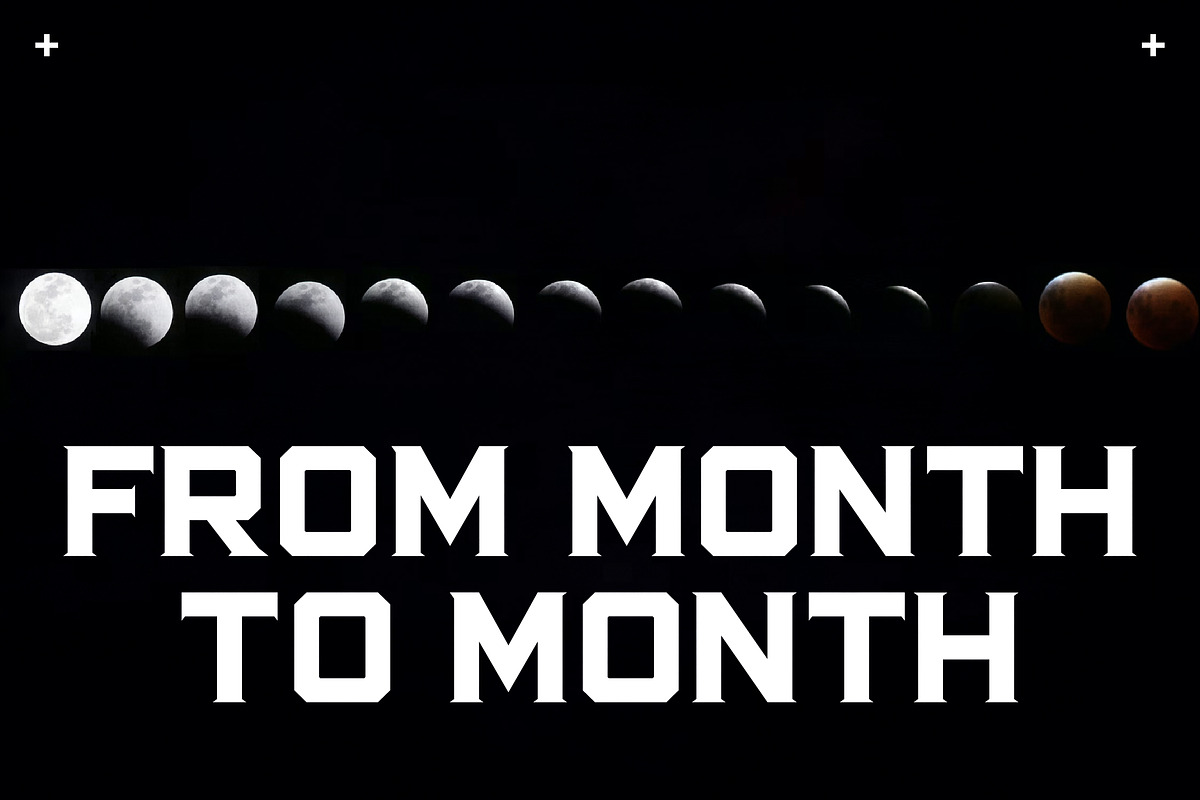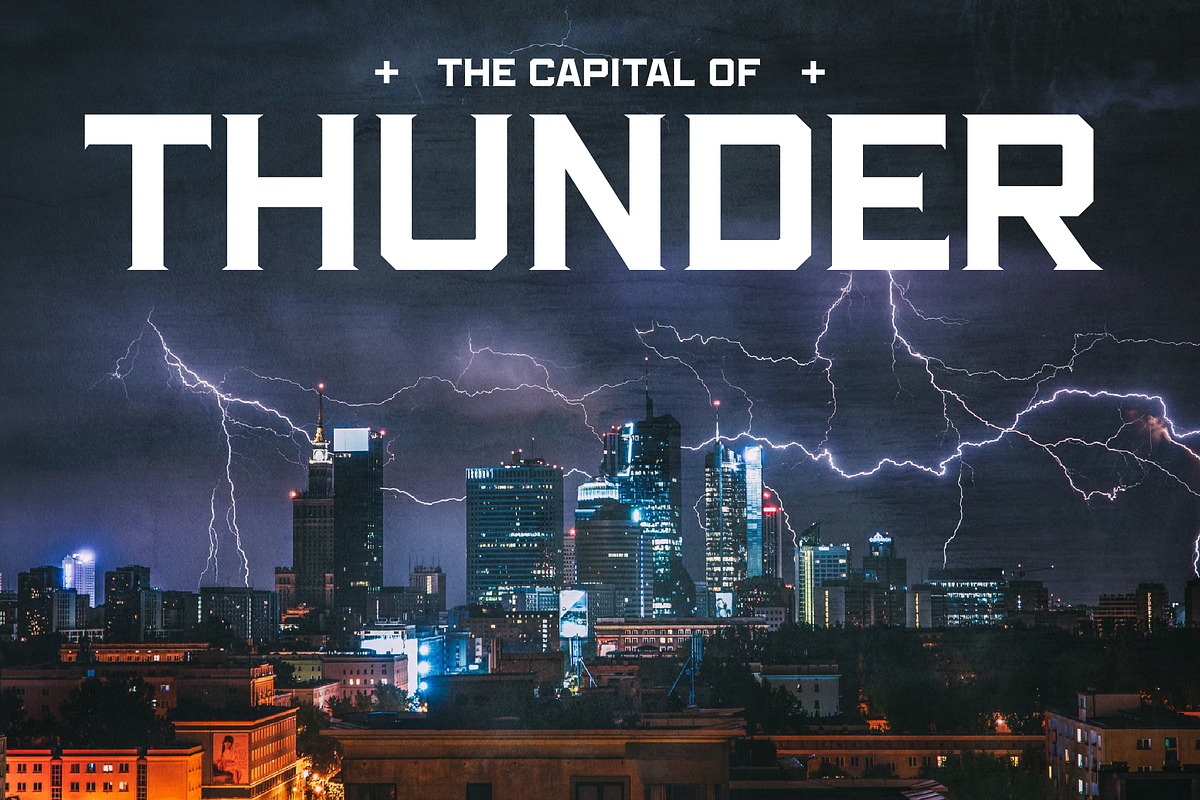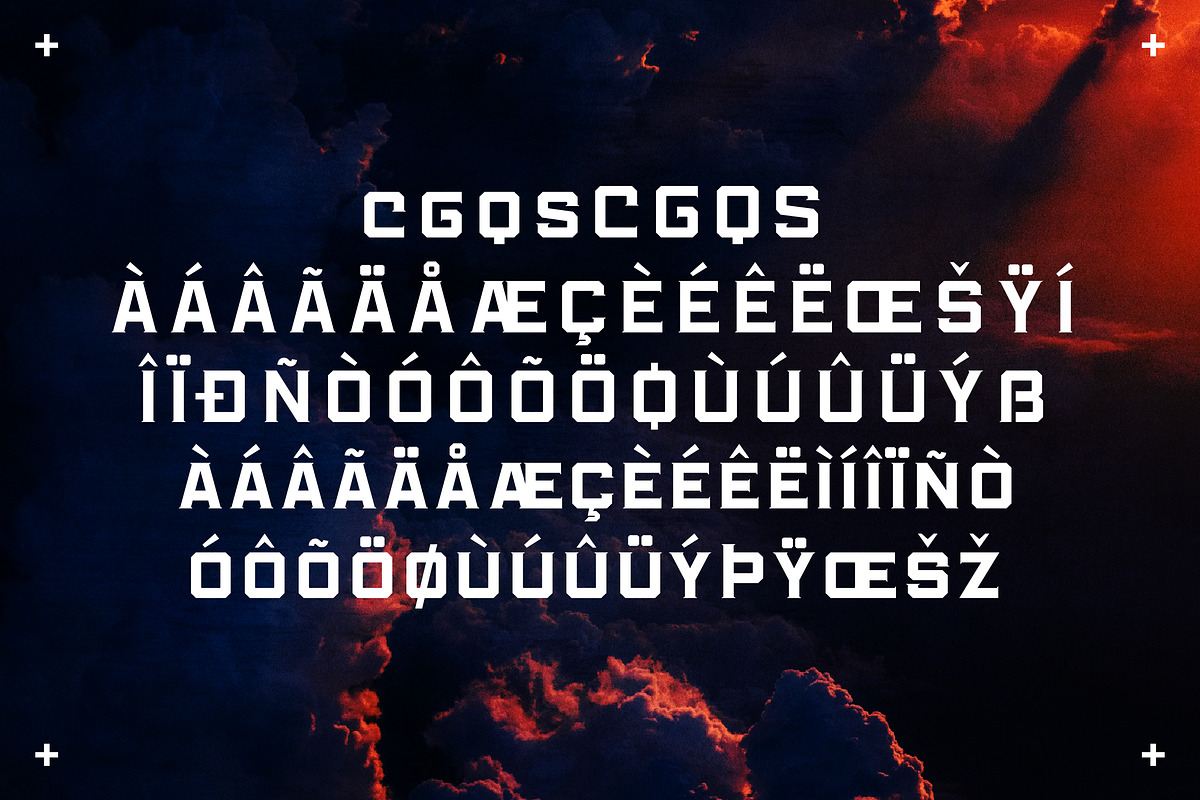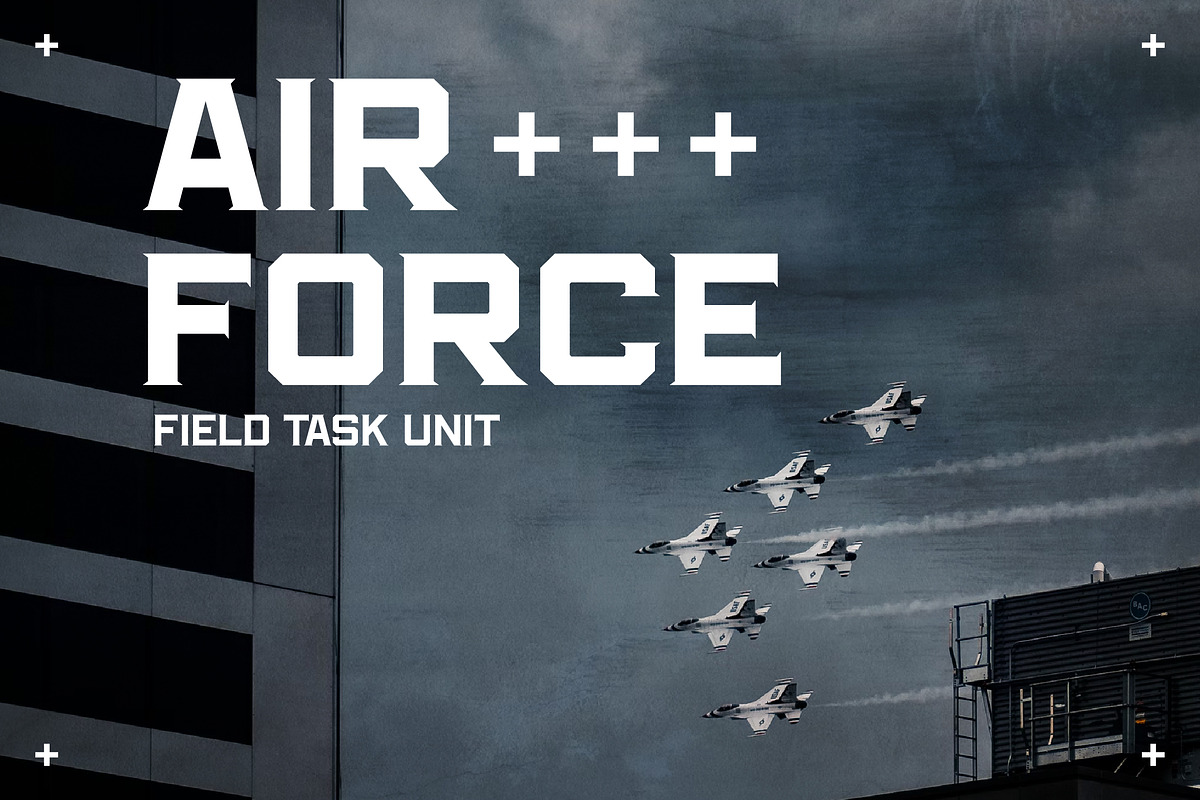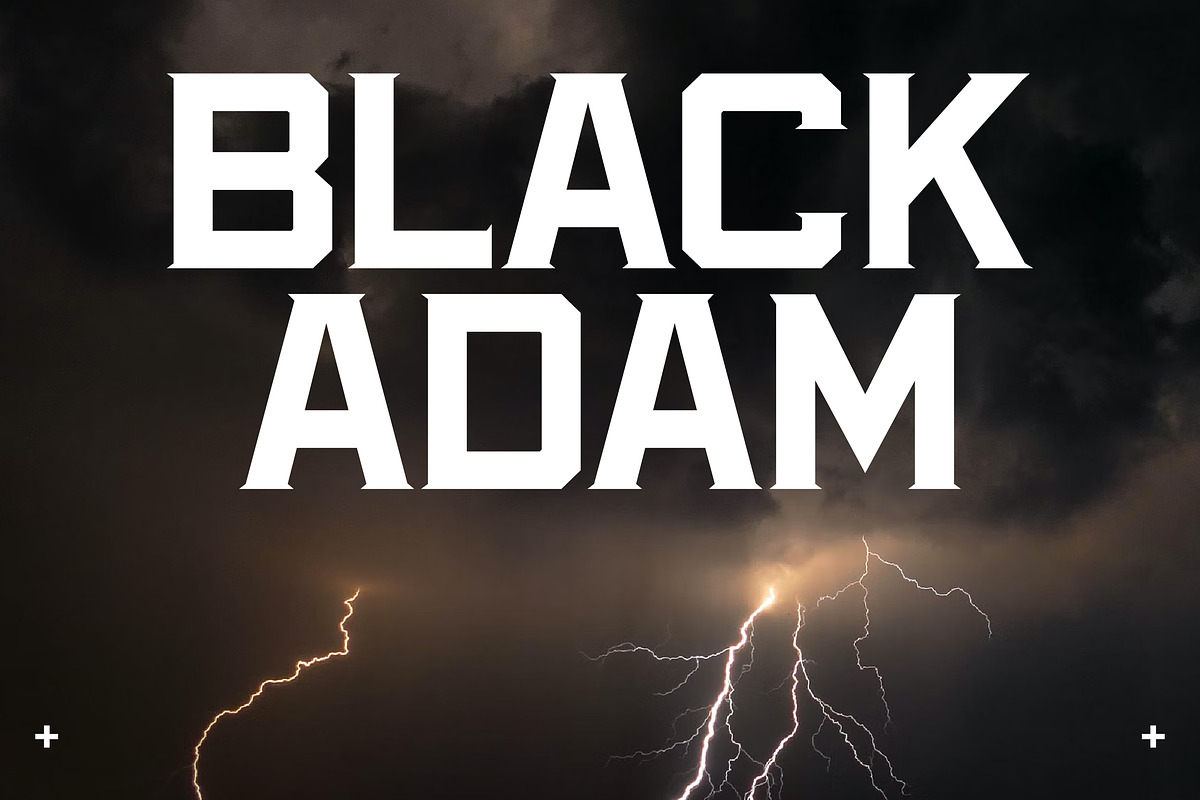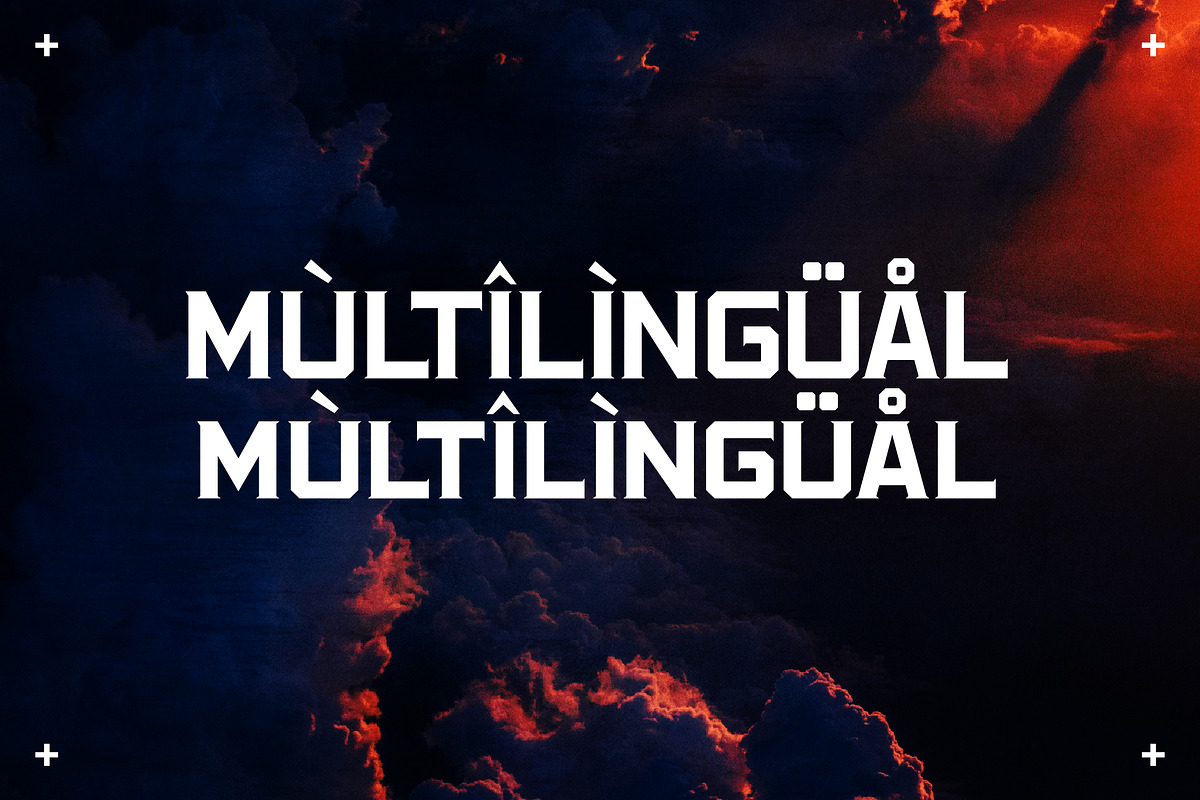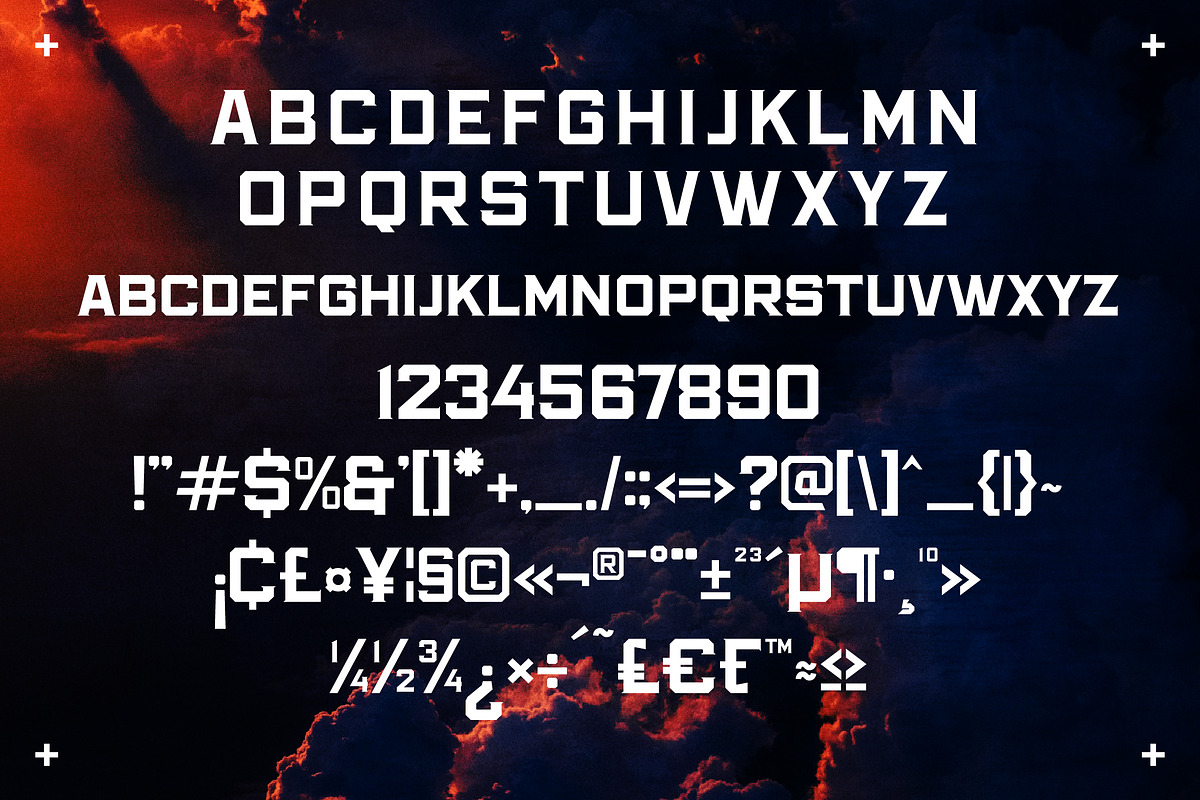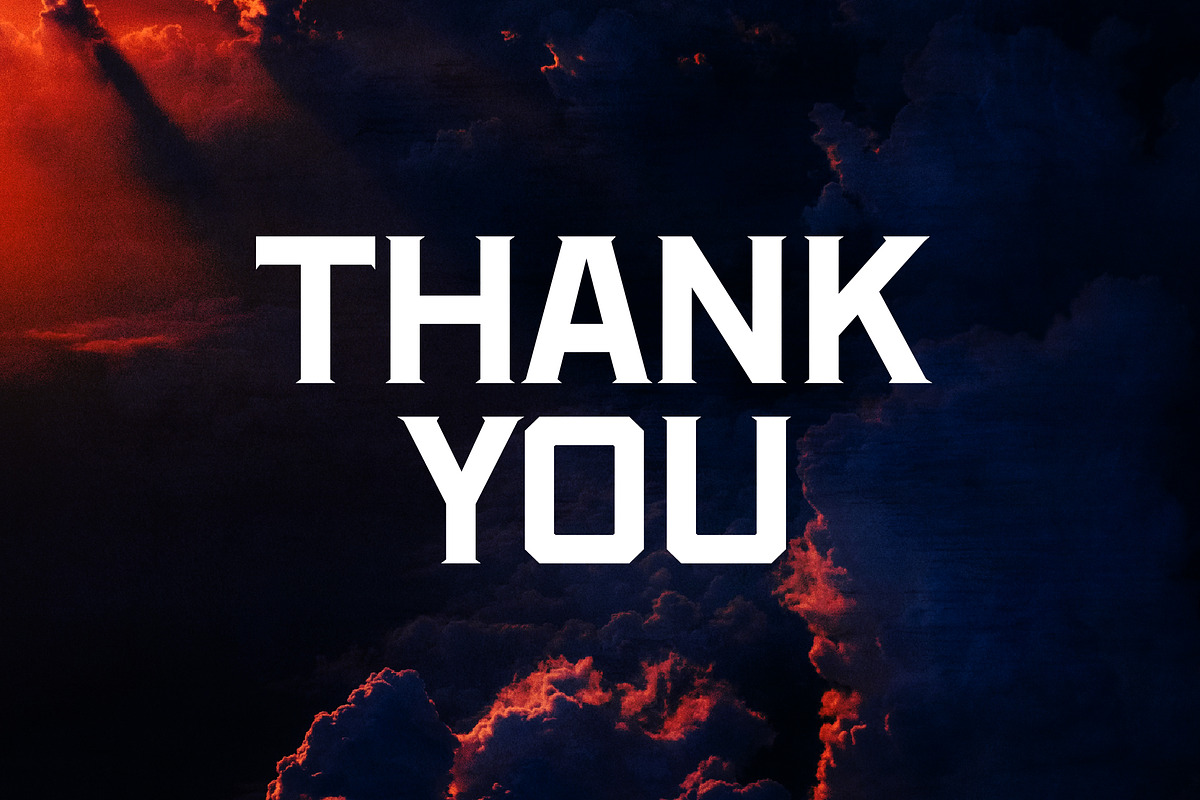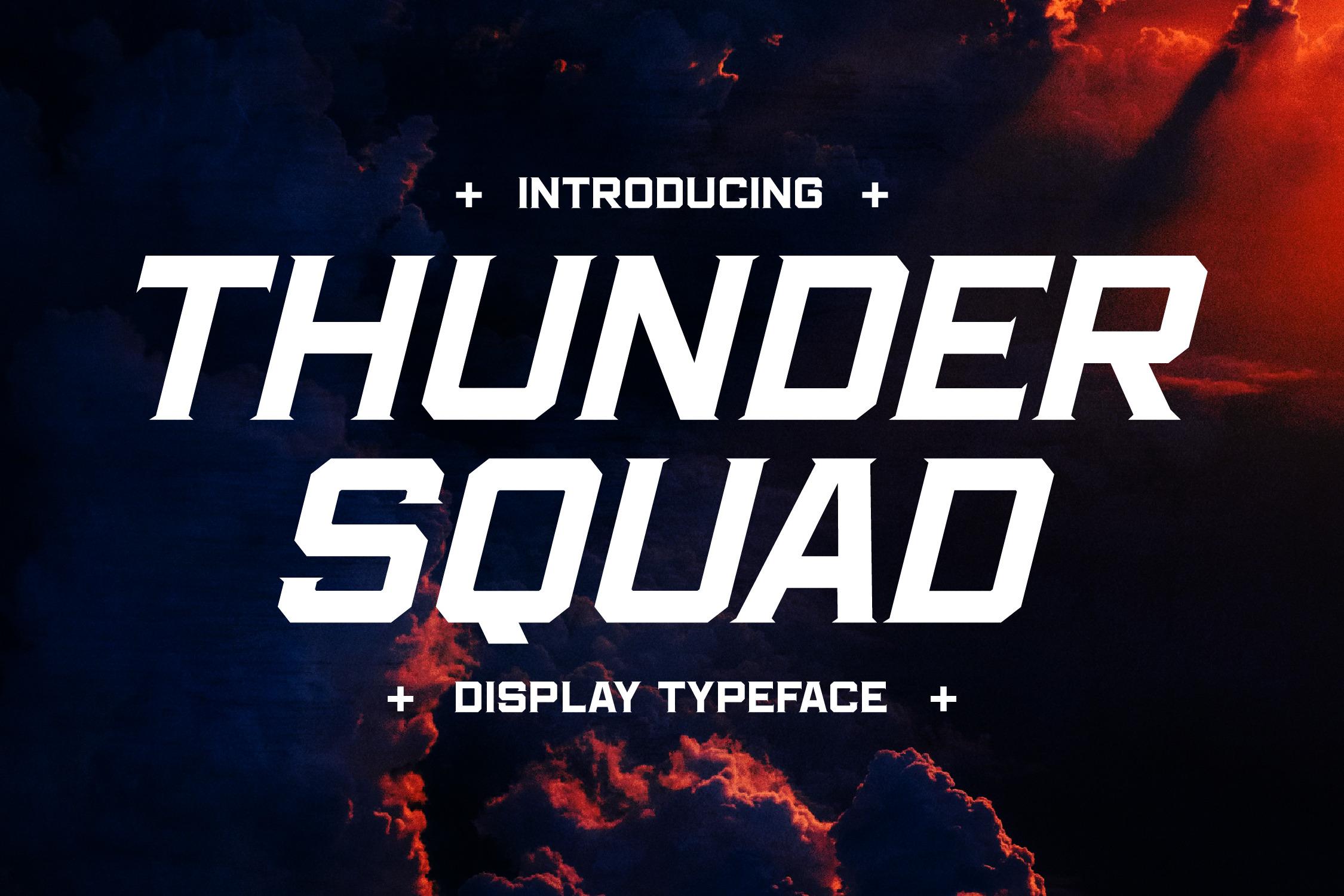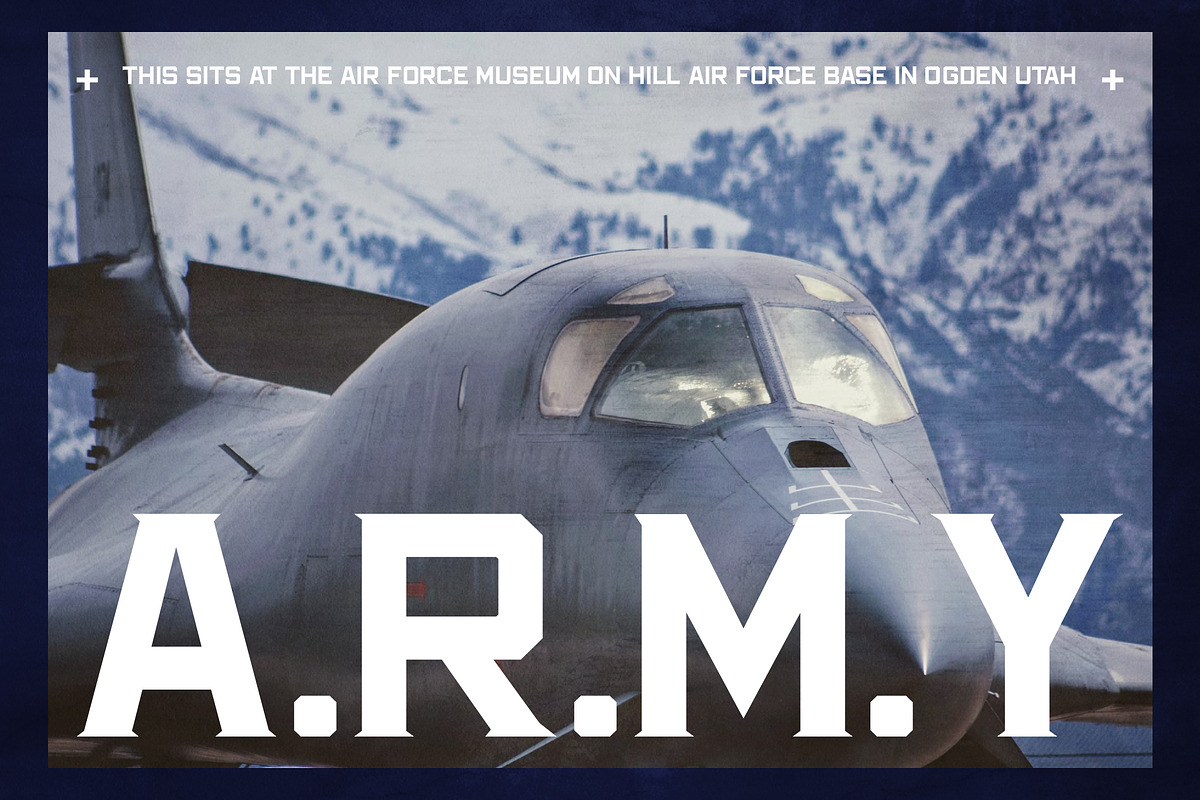
Thunder Squad DIsplay Typeface Font
Proudly present THUNDER SQUAD Typeface , created by Storytype, A serif modern and classic typeface that has own unique style & modern look. This typeface is perfect for an elegant & luxury logo, book or movie title design, fashion brand, magazine, clothes, lettering, quotes, and so much more.